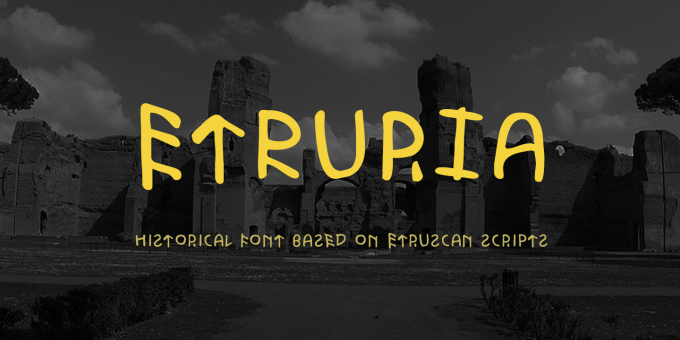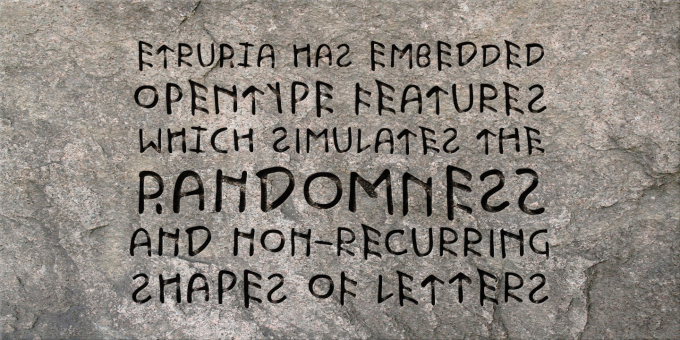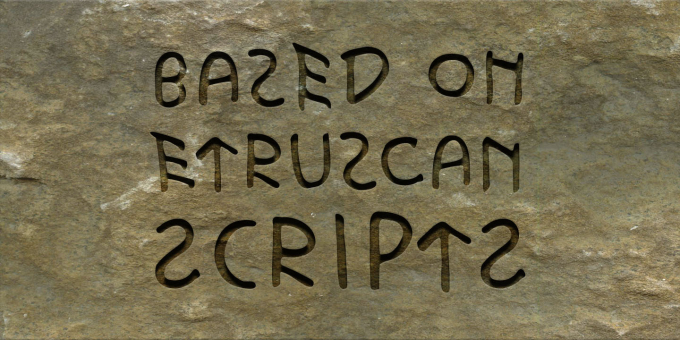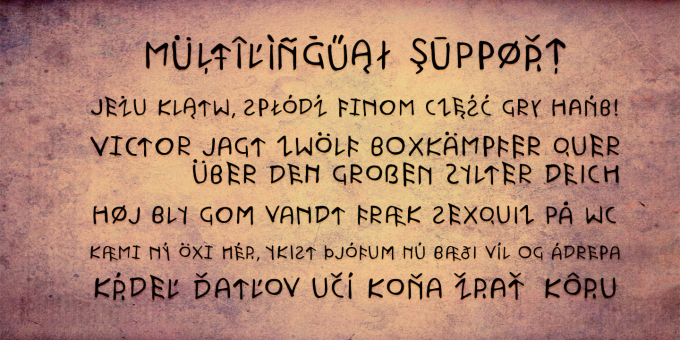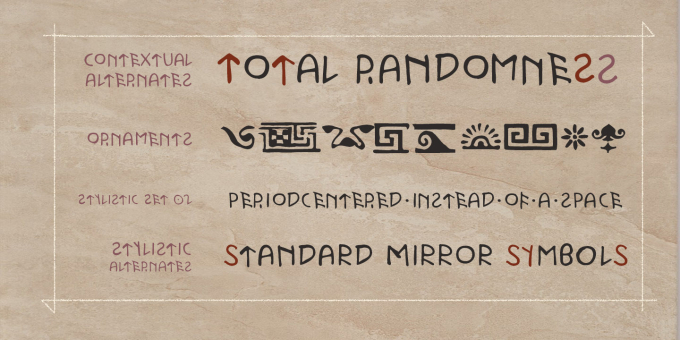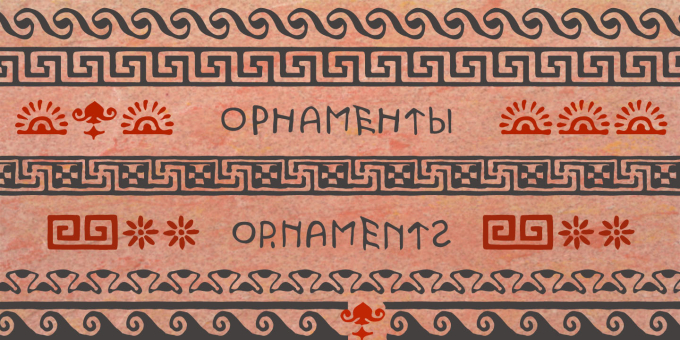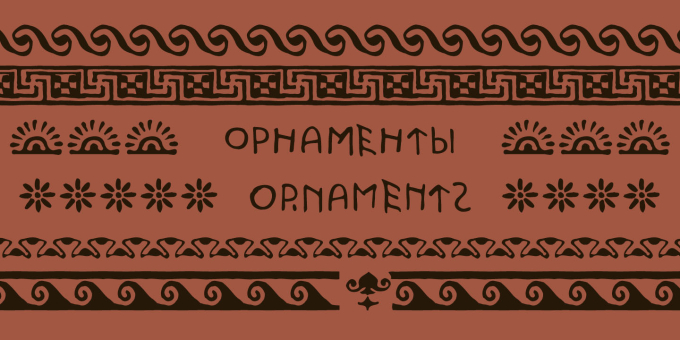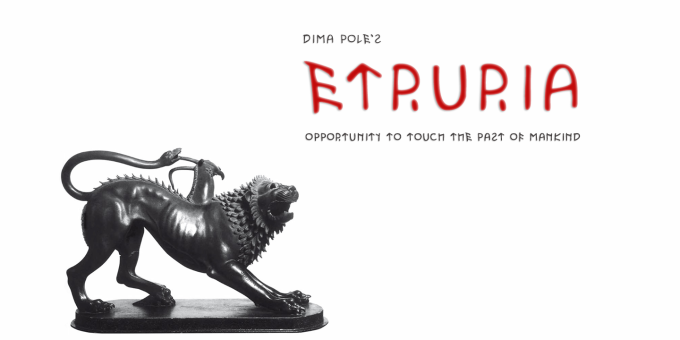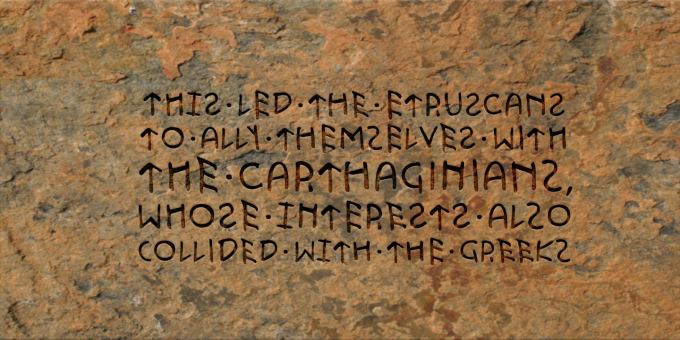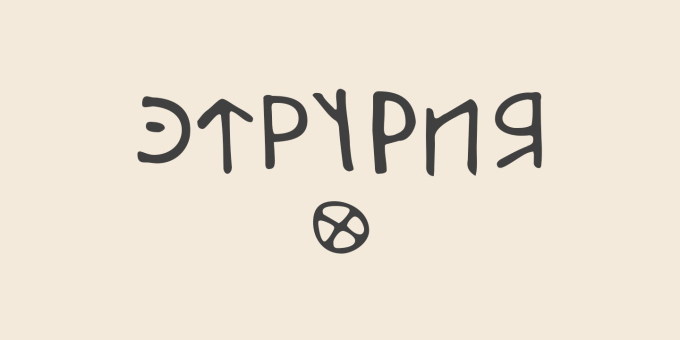
Etruria
The font Etruria is based on a real Etruscan inscriptions and realistic accurately simulates the writing of the Etruscans. The idea of the font Etruria is to give an opportunity for anyone to touch the past of mankind!
Etruria realistically simulates the real Etruscan inscriptions, their rhythm and style, the difference between letter spacing, vertical offsets, etc. for Example, for the Etruscan texts characterized by different thickness of the same characters due to the nature of their application on the stone. To simulate this in Etruria font uppercase and lowercase letters differ, these understated, but colorful differences are concluded in different forms, positions and thicknesses of these signs.